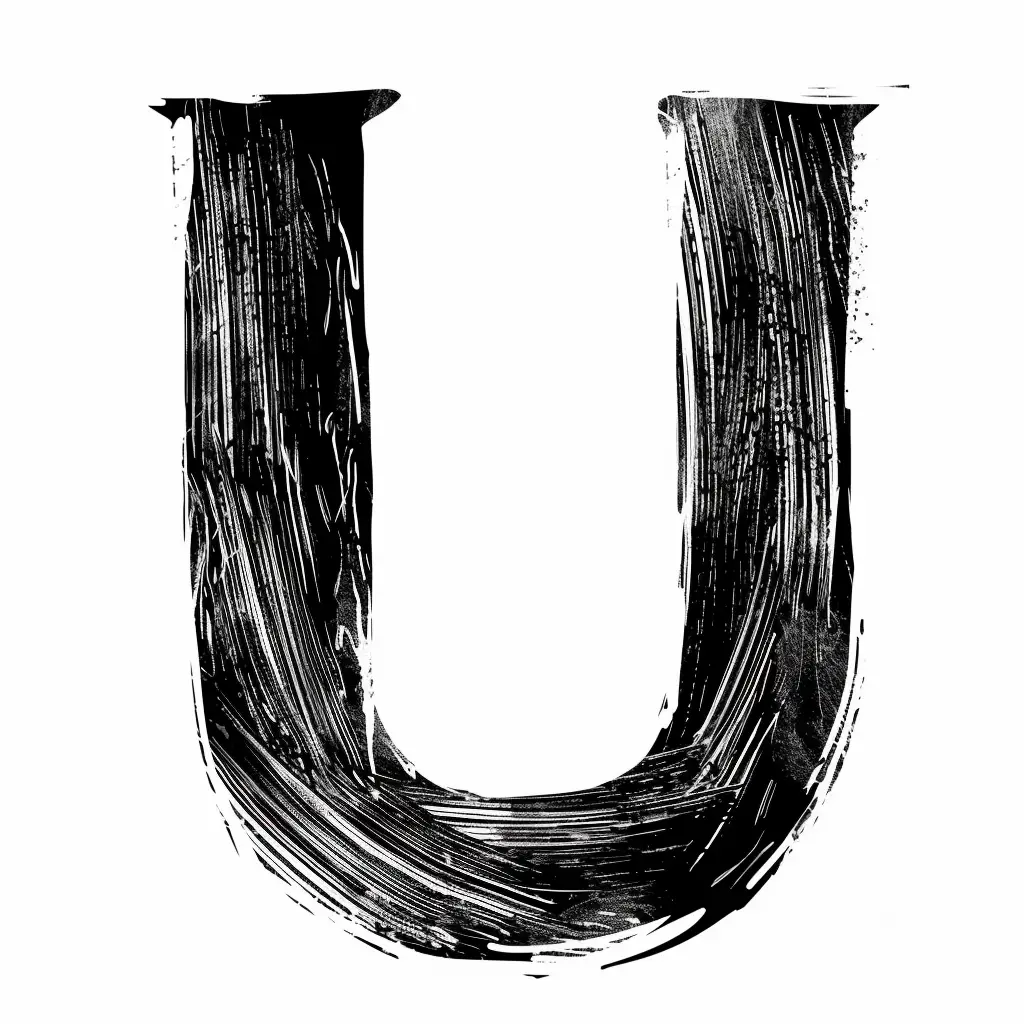
The image features a stylized letter "U" rendered in a bold, textured black brushstroke style against a plain white background. The letter has a rough, hand-painted appearance with visible brush marks and subtle splatters, creating a dynamic, artistic effect. The high contrast between the black letter and white backdrop emphasizes its graphic, expressive design.